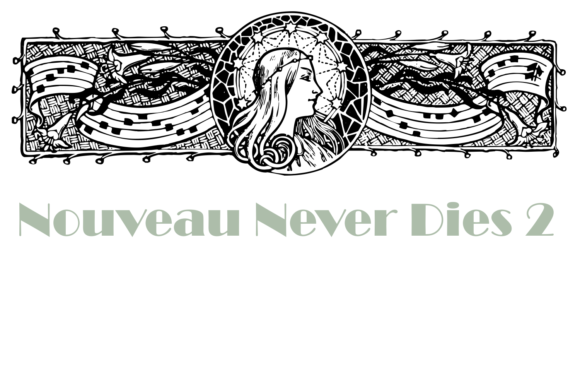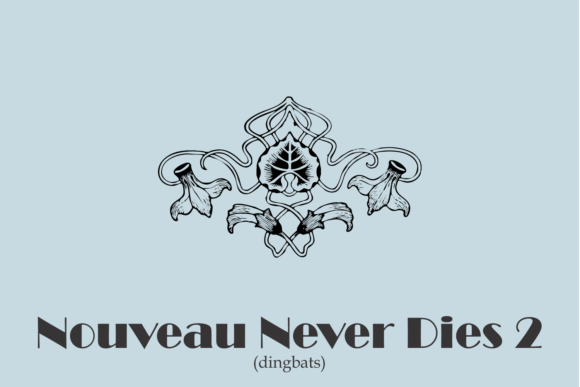
Introduction to Nouveau Never Dies Font Font
Fonts play a crucial role in design, and the Nouveau Never Dies Font font is a typeface that brings both character and versatility to any project. Whether you’re working on a branding project, a website, or a print design, the Nouveau Never Dies Font font offers a unique style that can elevate your work.
The Nouveau Never Dies is a dingbat font with Art Nouveau motifs.
Key Features of Nouveau Never Dies Font Font
Why Choose Nouveau Never Dies Font Font?
The Nouveau Never Dies Font font is more than just a typeface – it’s a design tool that helps you communicate your message with style and clarity. Its unique character set and versatile design make it suitable for a wide range of applications, from elegant invitations to bold headlines.
With its carefully crafted letterforms and balanced proportions, the Nouveau Never Dies Font font ensures readability and visual appeal across all mediums.
What makes Nouveau Never Dies Font font special?
The Nouveau Never Dies Font font stands out with its unique design, exceptional readability, and versatility across various design applications.